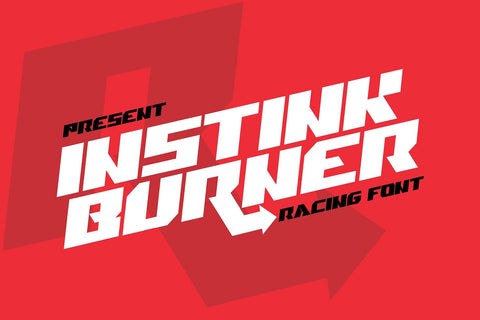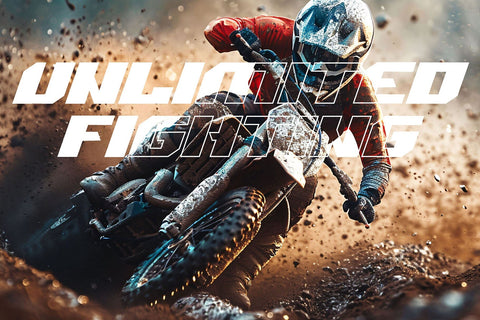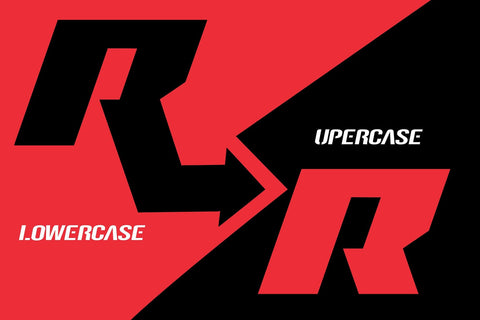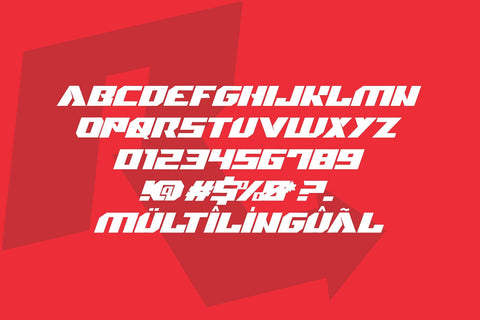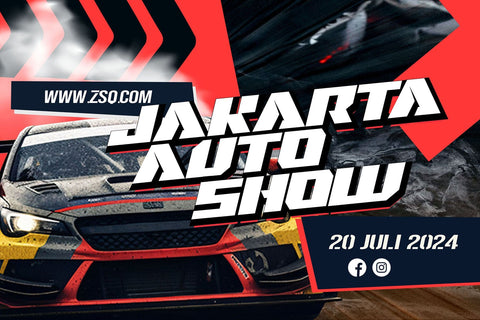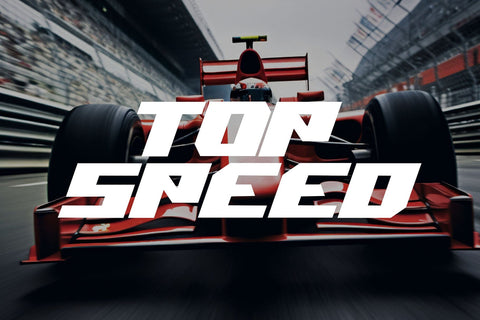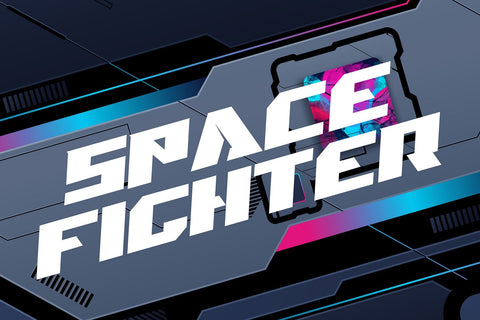
Instink Burner - Arrow Racing Display font
Instink Burner is a racing display font featuring two distinct styles: one with arrows in every character and one without. This font is designed to capture the fast-paced, dynamic essence of racing, making it perfect for any project that seeks to convey speed and excitement. Instink Burner’s unique character design adds a bold and energetic feel to your work, making it an ideal choice for posters, logos, and other design elements in need of a high-octane touch.